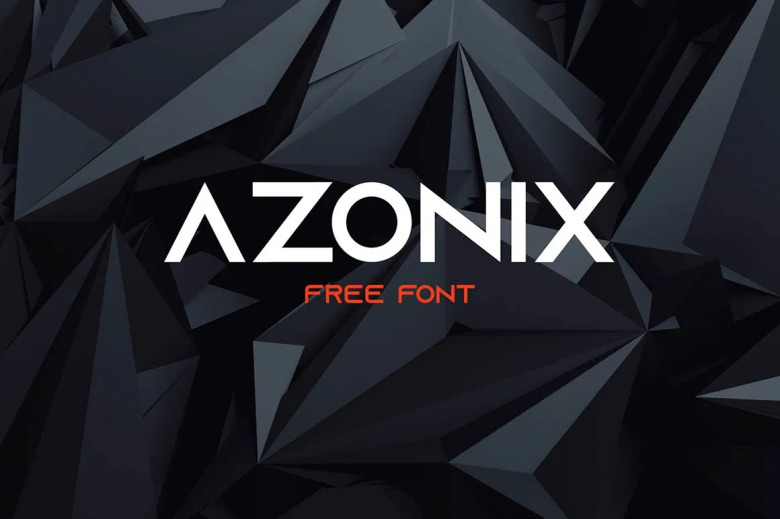
Azonix Font
Azonix Typeface
Hi Everyone! Introducing Azonix Font. Azonix is a modern sans-serif typeface. This typeface consists of bold geometric upper case letters, numbers and punctuation (symbols). This is perfect for branding. . You won’t get modern, cool, logos, social media posts, advertisements & product designs. with this font.
Azonix Typeface